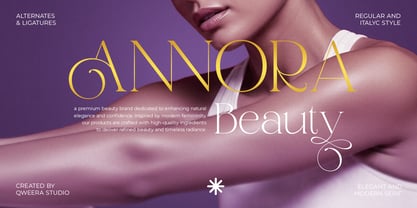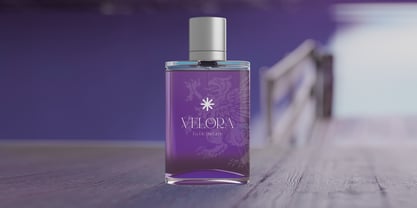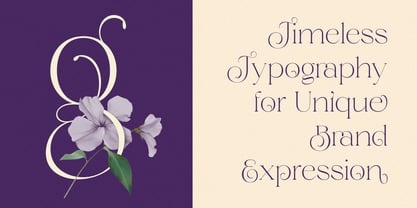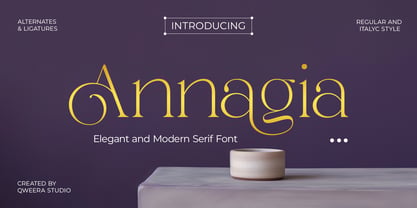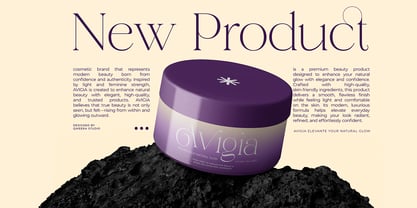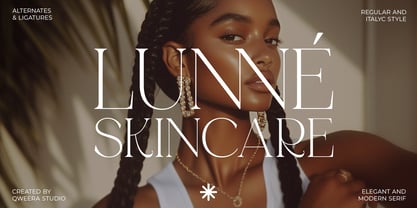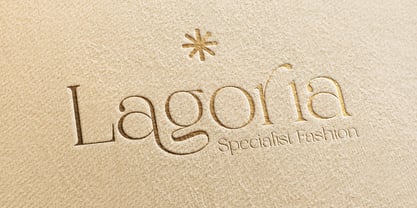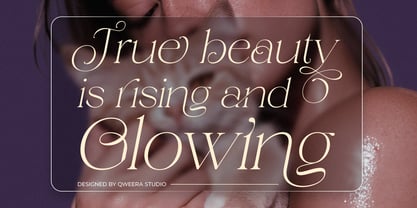
Annagia
by Qweera Studio
The Annagia Font Family was designed by Idhham Cholid Rikzano Yahya and published by Qweera Studio. Annagia contains 2 styles and family package options. More about this family
Annagia is a modern elegant display serif typeface developed for premium branding and sophisticated editorial design. The font combines graceful curves, balanced contrast, and stylish ligatures for a polished upscale aesthetic. With multilingual support and alternate characters, Annagia performs beautifully across logos, invitations, beauty branding, packaging, and fashion campaigns. An excellent choice for professionals seeking timeless elegant typography. Features Alternates Ligatures Multilingual support Professional kerning Regular & Italic Elegant serif construction Specifications Language Support: Western, Central Europe Features: Alternates, Ligatures, Italic Recommended For Luxury branding, invitations, packaging, editorial design, fashion identity, premium logos
Designers: Idhham Cholid Rikzano Yahya
Foundry: Qweera Studio
Qweera Studio is a type foundry and subsidiary of Shakira Studio, dedicated to crafting high-quality, unique fonts that inspire creativity. Building on the experience and expertise of Shakira Studio, Qweera Studio specializes in a range of type designs, with a particular focus on expressive serifs and versatile styles tailored for designers and crafters alike. Each font is thoughtfully crafted to bring character and functionality, offering designers powerful tools for impactful projects.